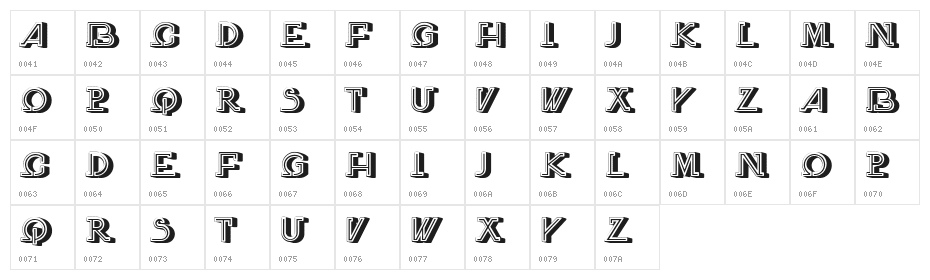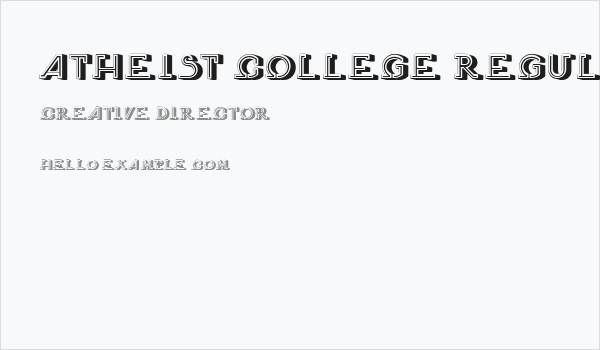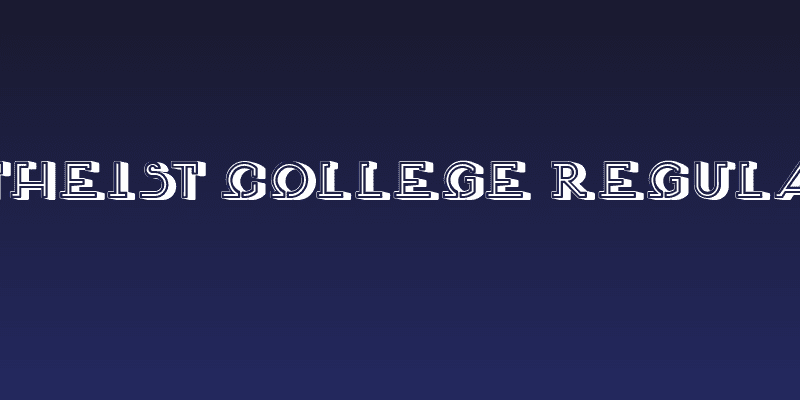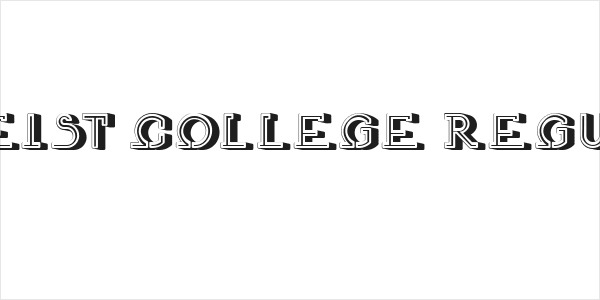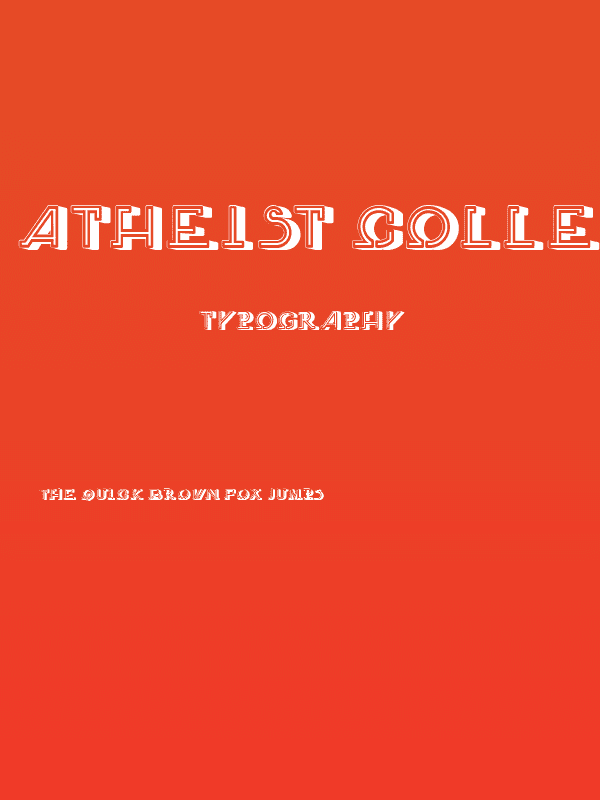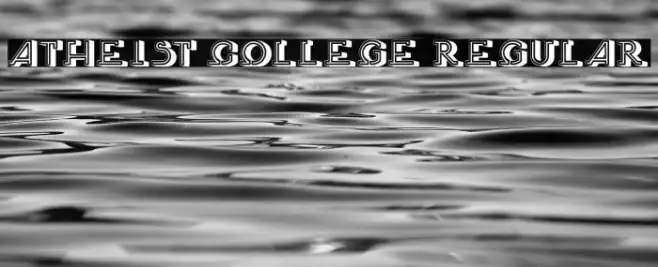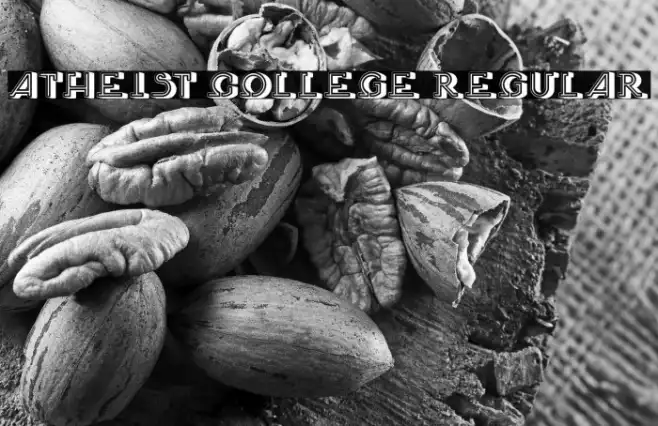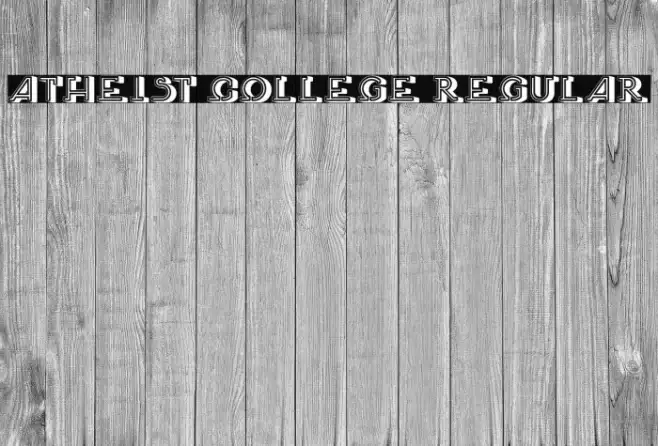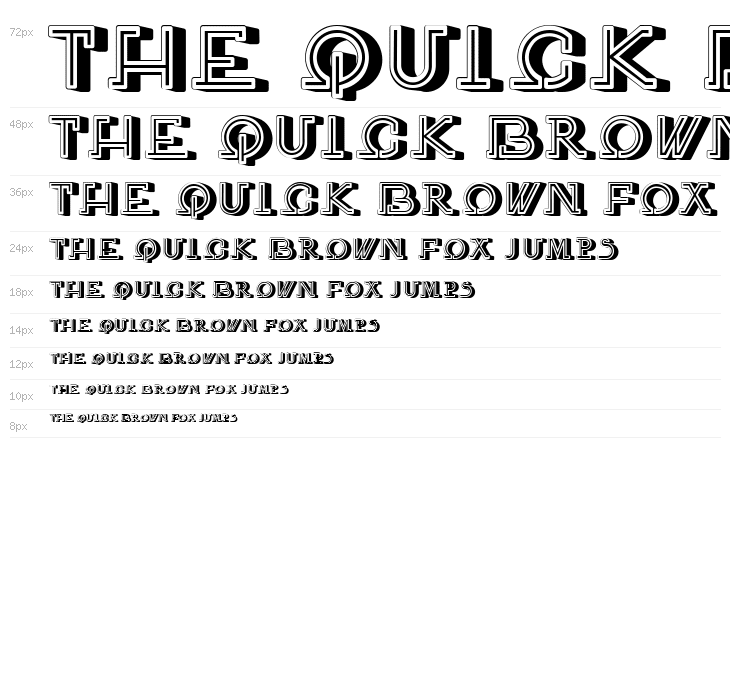
Atheist College Regular Font
Atheist College Regular Description
This font features a bold and striking design with a collegiate flair, characterized by its strong, angular lines and prominent serifs. The letters are outlined, creating a layered effect that adds depth and dimension. The style is reminiscent of traditional varsity or sports team lettering, making it ideal for projects that require a sense of strength and tradition. The uppercase letters are particularly dominant, with a consistent height and width that convey a sense of uniformity and order. The font's unique design elements, such as the cutouts and shadowing, give it a modern twist while maintaining a classic appeal.
| Proposed Projects | Ideal for sports team branding, college event posters, merchandise, and retro-themed designs. |